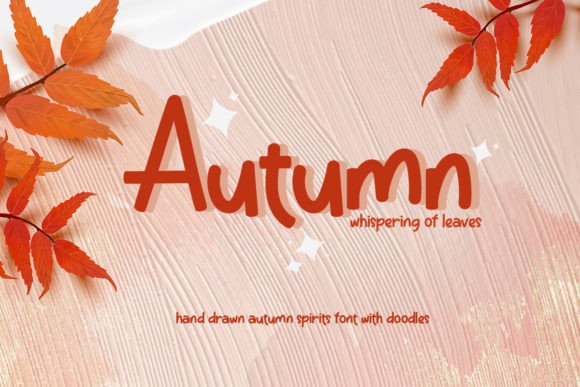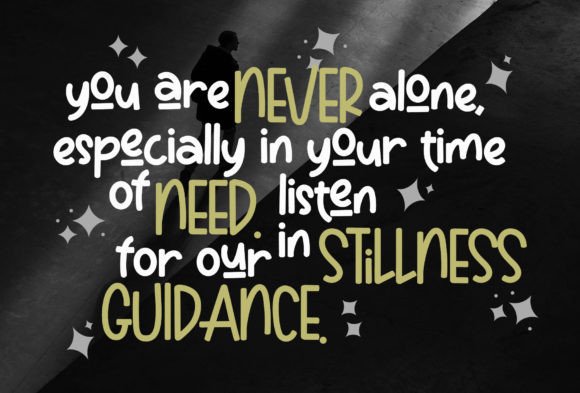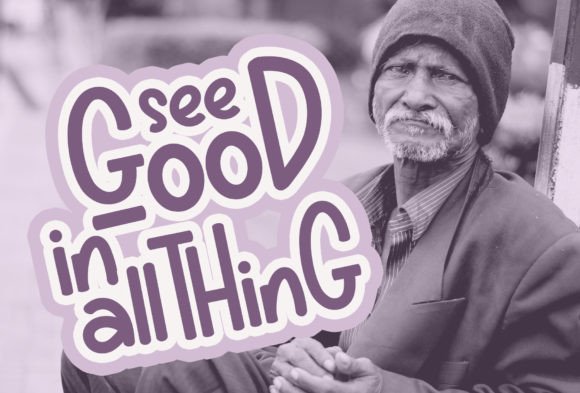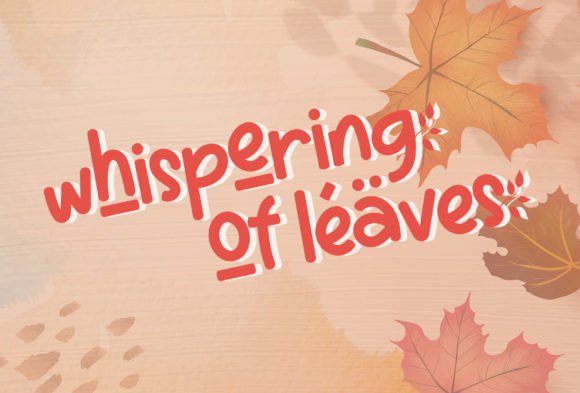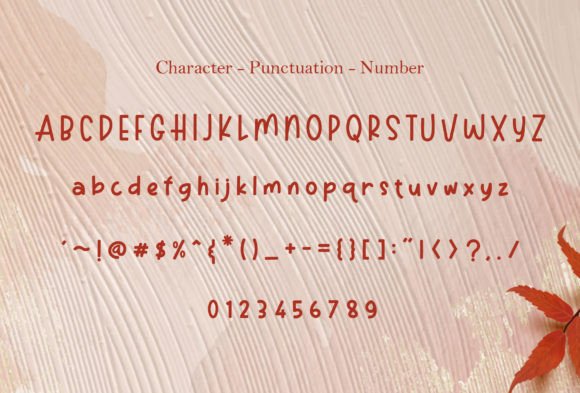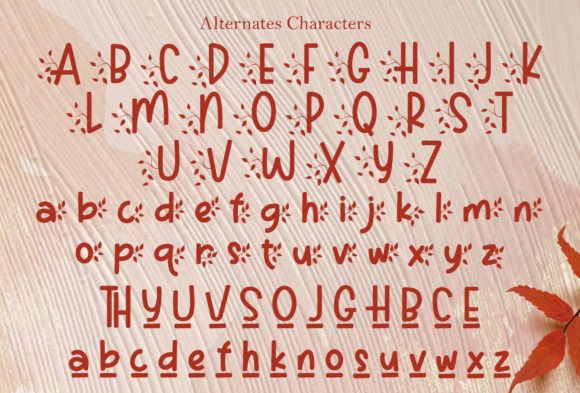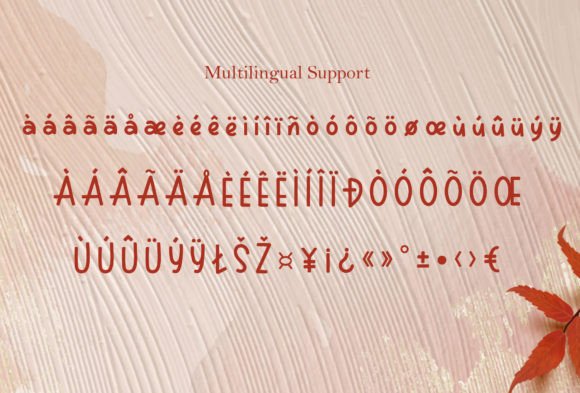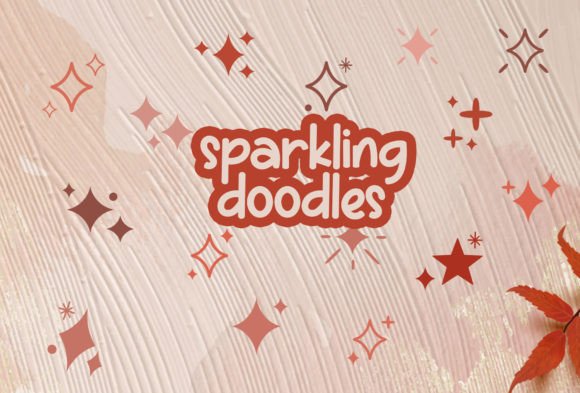
Autumn Font
“Autumn Font” is a charming hand-drawn typeface inspired by the autumn season, which lends it a warm and rustic feel. This font has been expertly crafted to elevate your creative projects, offering the potential to take your ideas to new heights. It’s an excellent fit for a wide range of design applications, making it a versatile choice for designers and creatives.
Whether you’re working on a unique design, creating greeting cards, curating social media content, fashioning quotes, or seeking an alternative for display design, “Autumn Font” has the versatility to meet your needs.
The font’s hand-drawn and rustic aesthetic captures the essence of autumn, making it a perfect choice for projects that require a cozy, welcoming, and unique touch. It can infuse your designs with the spirit of the season, making them feel warm and inviting.
By incorporating “Autumn Font” into your creative work, you can add character and depth to your projects. Its distinctive style can enhance your designs and set them apart, leaving a memorable impression on your audience. Whether you’re a professional designer or an enthusiast looking to bring a touch of autumn to your creations, “Autumn Font” is a valuable resource to spark your creativity and evoke the beauty of the season.